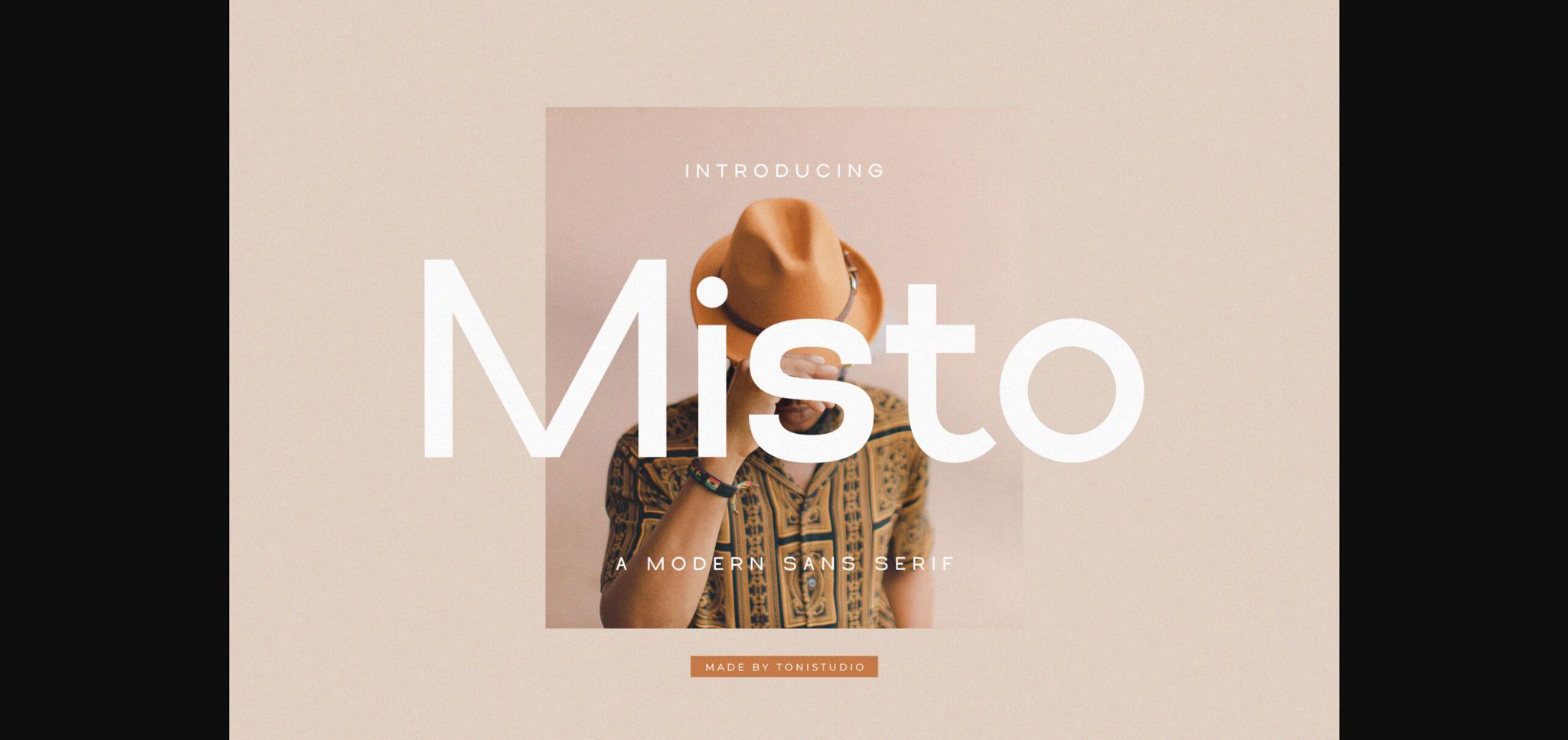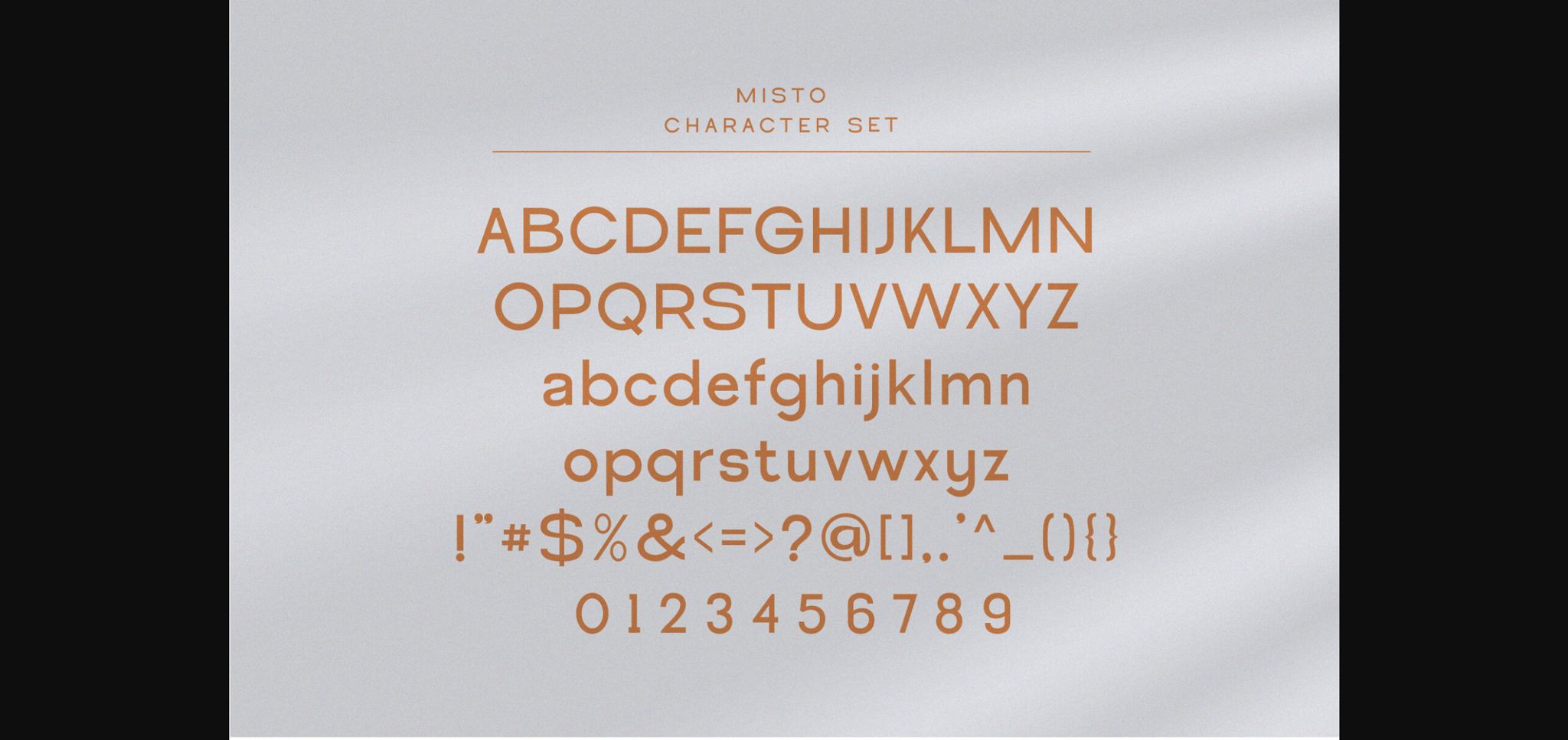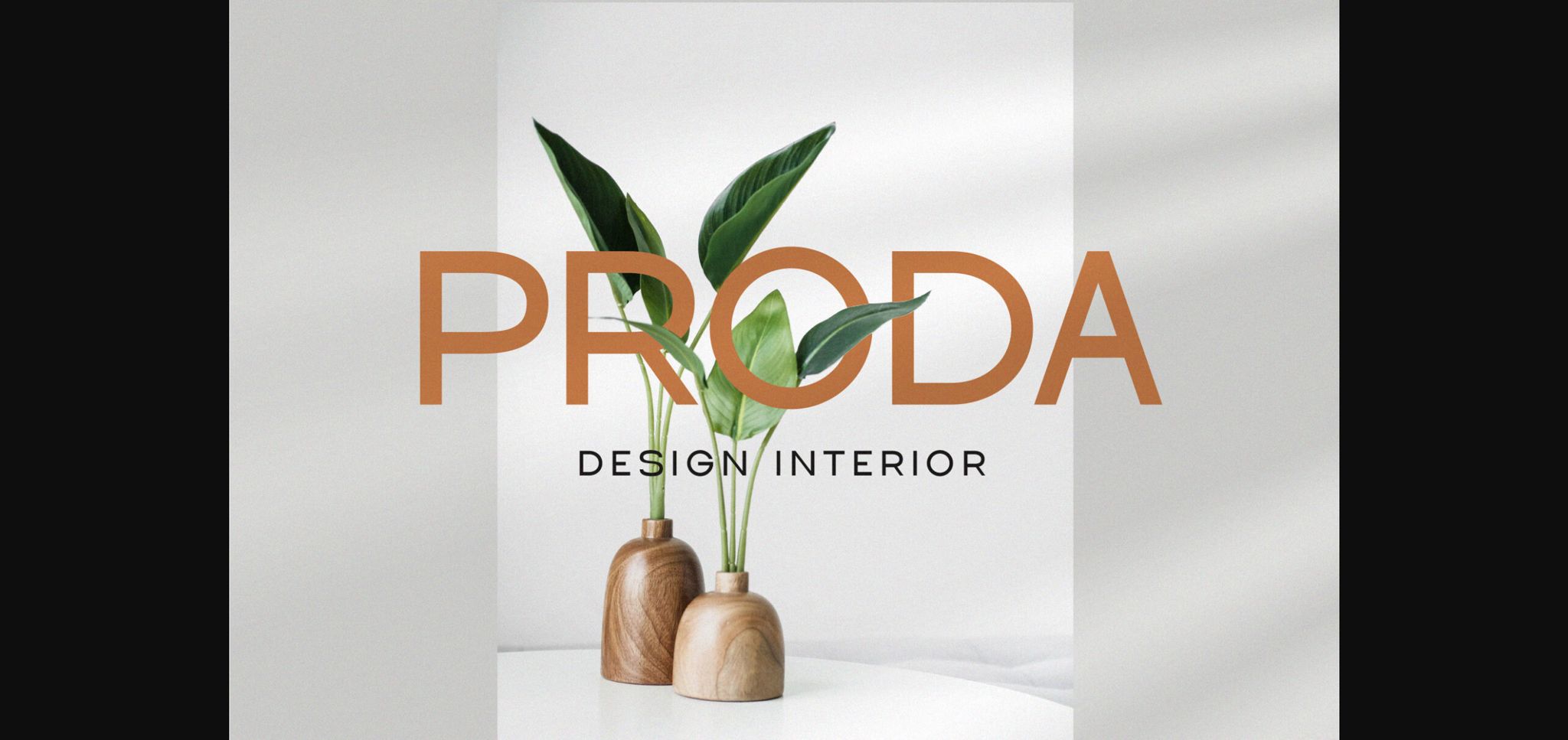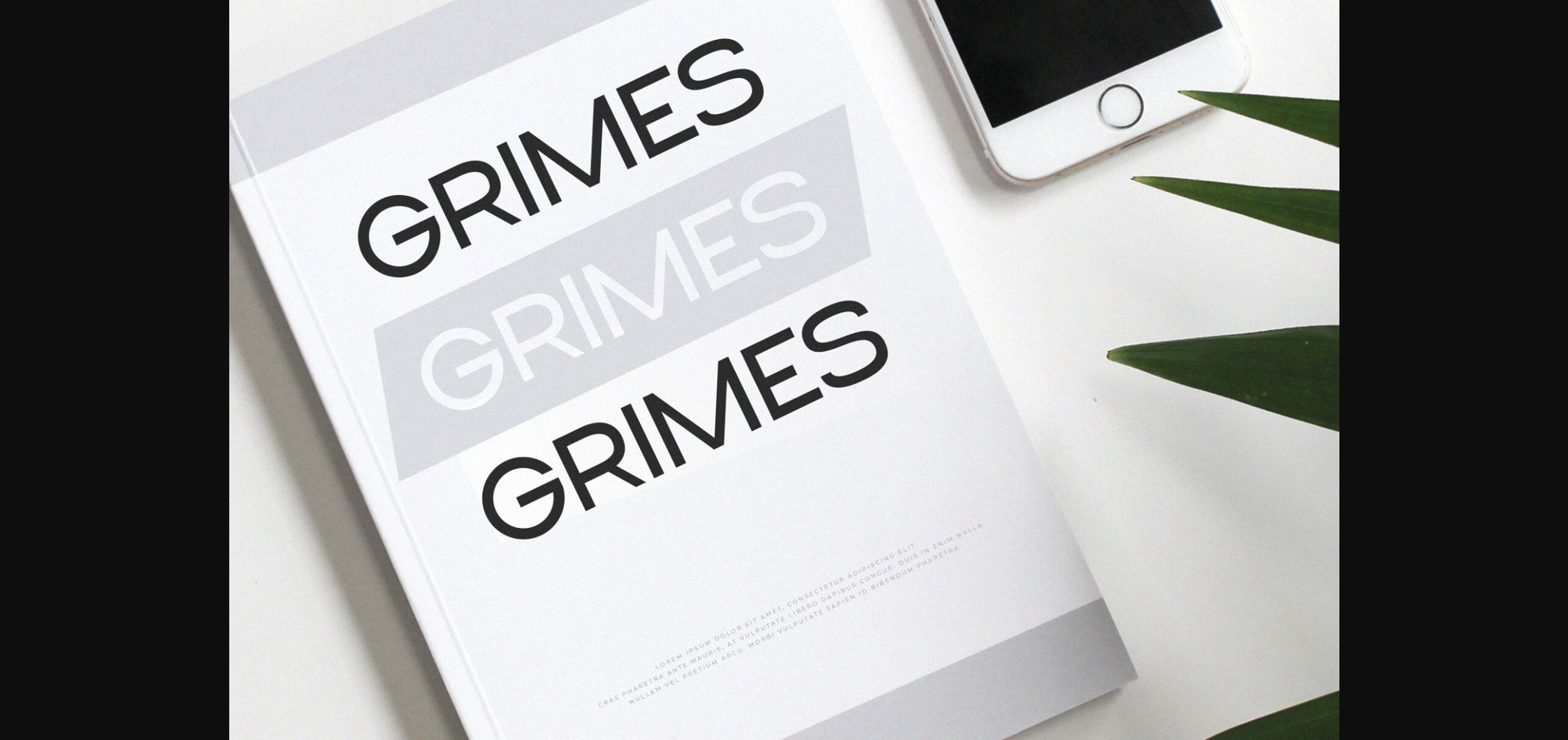
Presenting the modern Misto Sans serif Font inspired by famous minimalist logos suitable for template designs, brochures, videos, advertising branding, logos, invitations, layout designs, elegant crafts, beauty designs, and more.